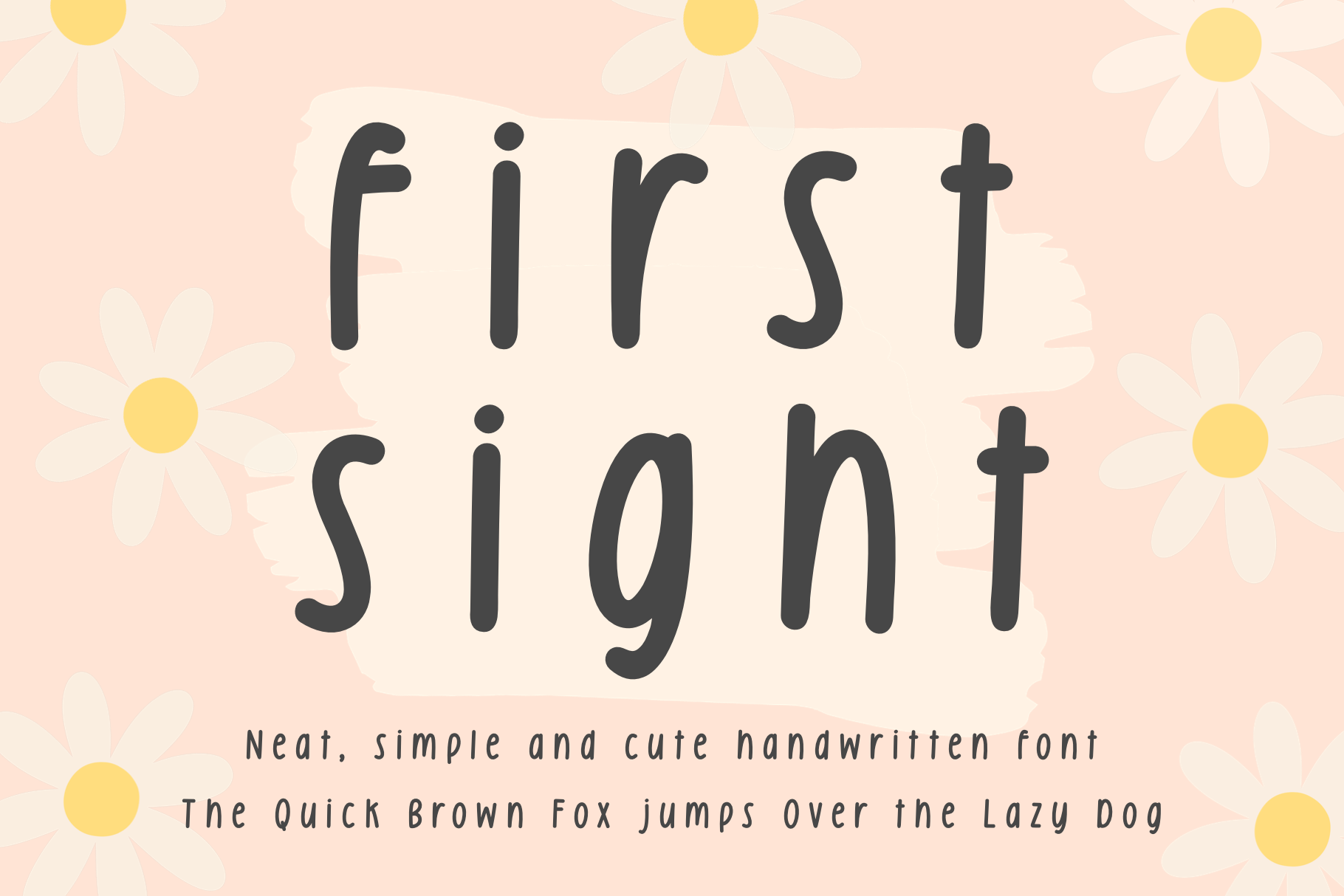
First Sight - cute handwriting font
First Sight, a sweet handwritten font. You can use this font in various projects - blog posts, digital planner, invitations, greeting cards, planners, photo albums, decorations and much more. Thank you :)